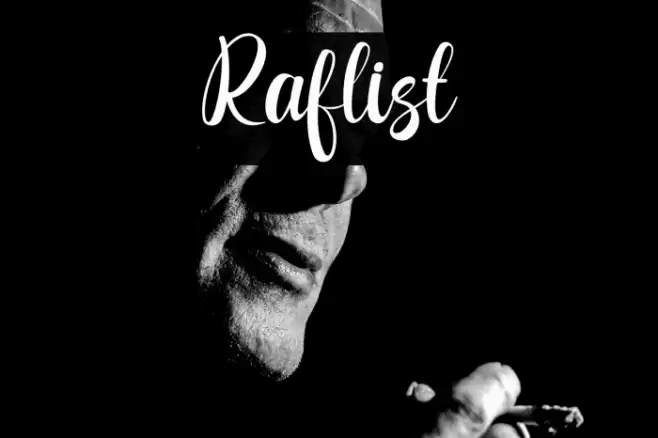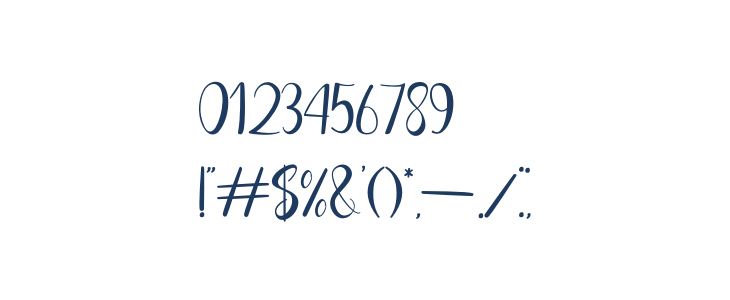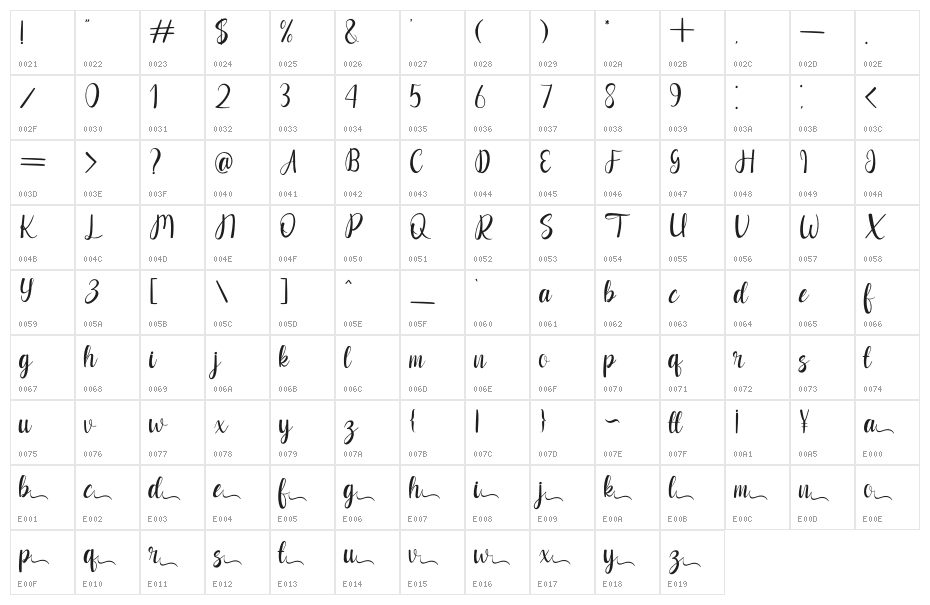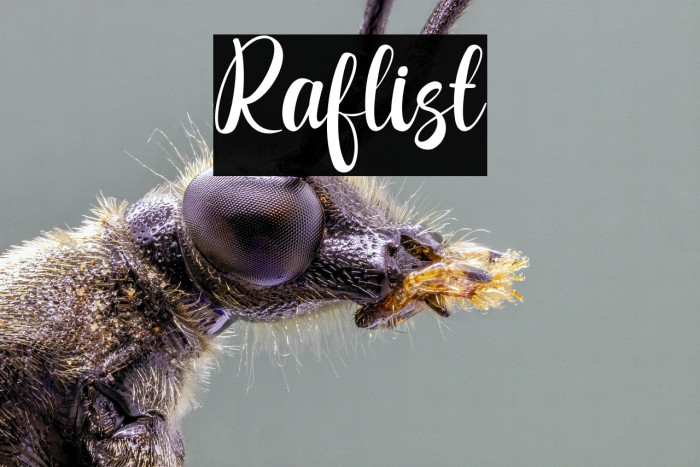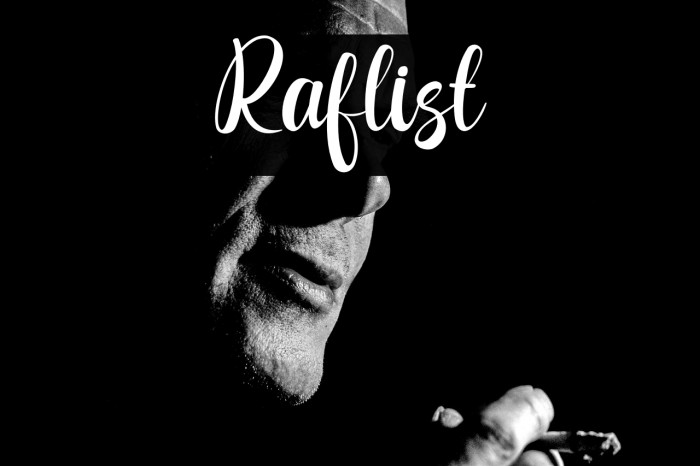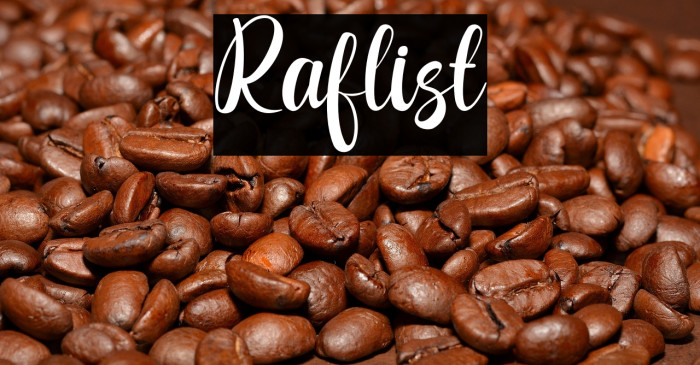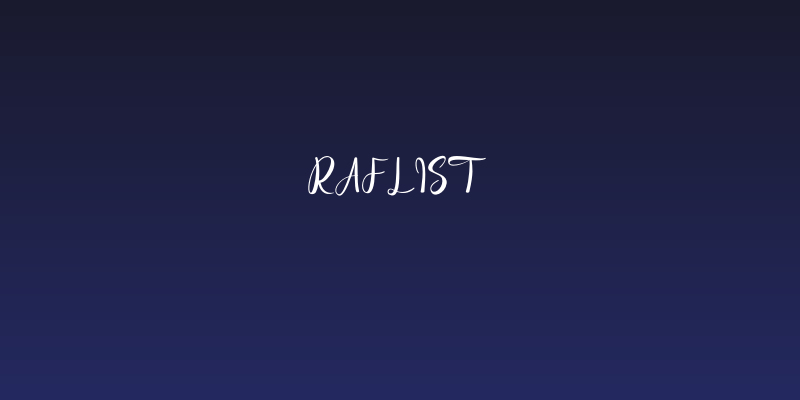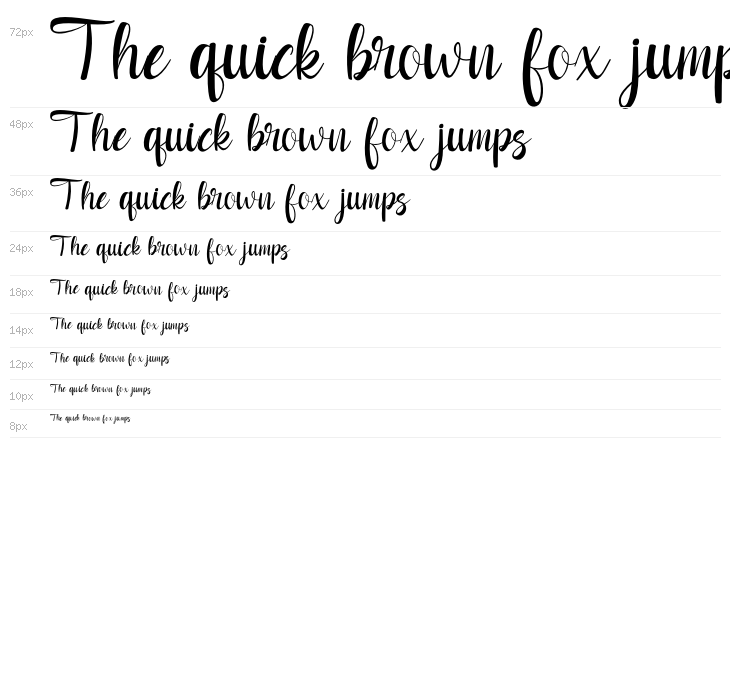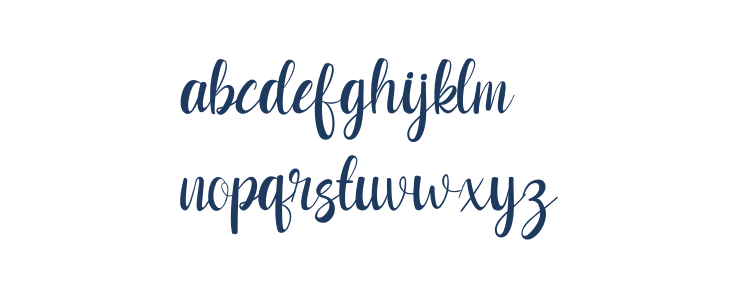
Raflist Font
Raflist Description
This font features a playful and elegant script style with a handwritten appearance. The uppercase letters are bold and flowing, with a distinct flair that adds a touch of sophistication. The lowercase letters maintain a consistent style, offering a smooth and connected look that mimics natural handwriting. The numerals are clear and easy to read, while the special characters blend seamlessly with the overall design. This font's unique charm is enhanced by its varying stroke widths, creating a dynamic and lively feel.
A playful and elegant script font with a handwritten style from Regular fonts.
- Font: Raflist
- Proposed Projects: Ideal for wedding invitations, greeting cards, branding, and social media graphics.
- Use Case: Logos, Headlines, Invitations